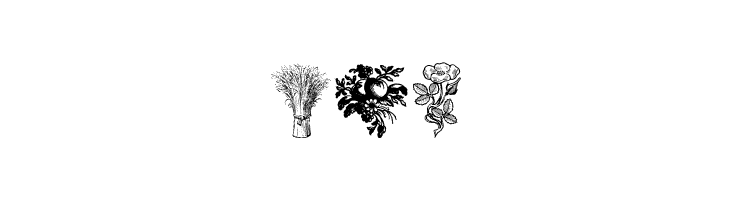
A pixelated, digital-style font with a retro, geometric design.
A dot matrix style font with a retro digital aesthetic.
A bold, angular serif font with a modern twist and strong visual impact.
A bold, gothic-inspired font with sharp, angular lines and dramatic curves.
A lively, cursive script font with interconnected letters and a natural handwriting style.
A playful, handwritten font with smooth, rounded edges and a friendly appearance.
A bold, rounded, and playful italic font with a hand-drawn feel.
Ornate botanical and vegetable-themed dingbat illustrations.
A playful, handwritten font with smooth, flowing lines and a casual vibe.
A playful, bold handwritten font with a casual and friendly style.